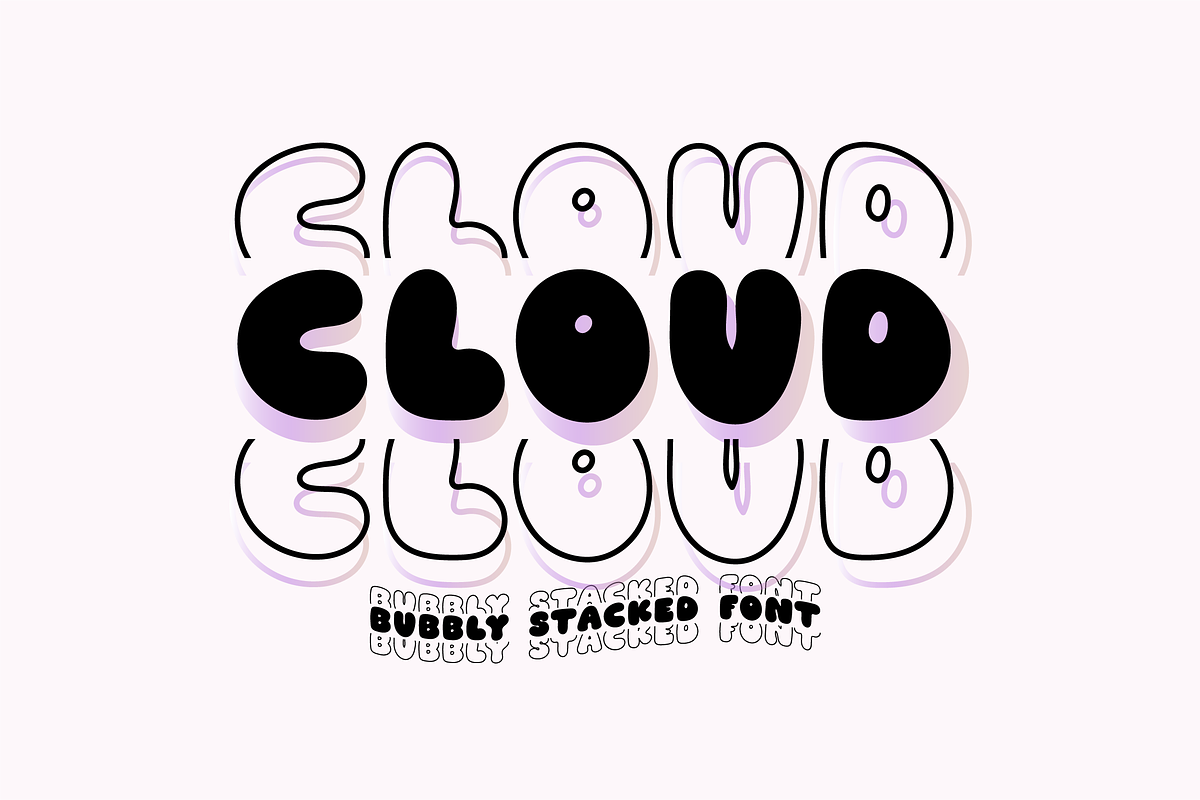
CLOUD STACKED Retro Bubbly Font Free Download
Cloud Stacked Retro Bubbly Font Free Download
Cloud Stacked Retro Bubbly Font Free Download is a cheerful and nostalgic typeface that captures the funky fun of the 70s and early 80s. With its thick, rounded letters, soft curves, and playful “stacked” layout, this font is perfect for retro posters, children’s books, groovy branding, product packaging, T-shirts, and colorful social media graphics.
Designed to bring joy and bold personality to your projects, Cloud Stacked adds instant charm and vintage flair to any design. Its bubbly style and friendly feel make it ideal for brands and creatives who want to stand out with warmth and positivity.